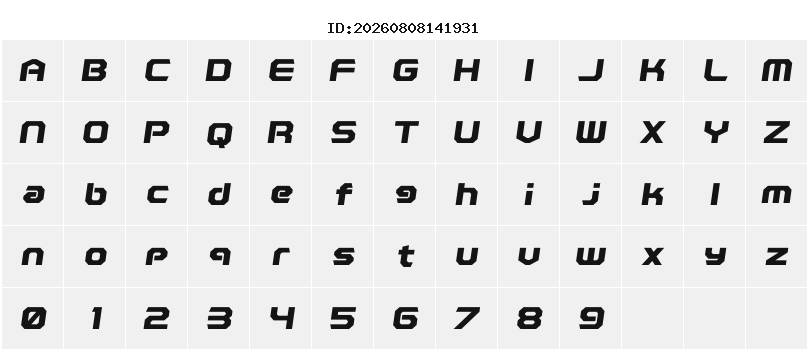
Polentical Neon Preview
• Font Name: Polentical Neon
• Font ID: Polentical Neon Bold Italic
• Full Font Name: Polentical Neon Bold Italic
• Designer: Jayvee D. Enaguas (Grand Chaos)
About Polentical Neon.ttf
Polentical Neon.ttf is a modern, elegant sans-serif font designed for ultimate readability and visual harmony. Perfect for branding, headlines, web design, and print materials.